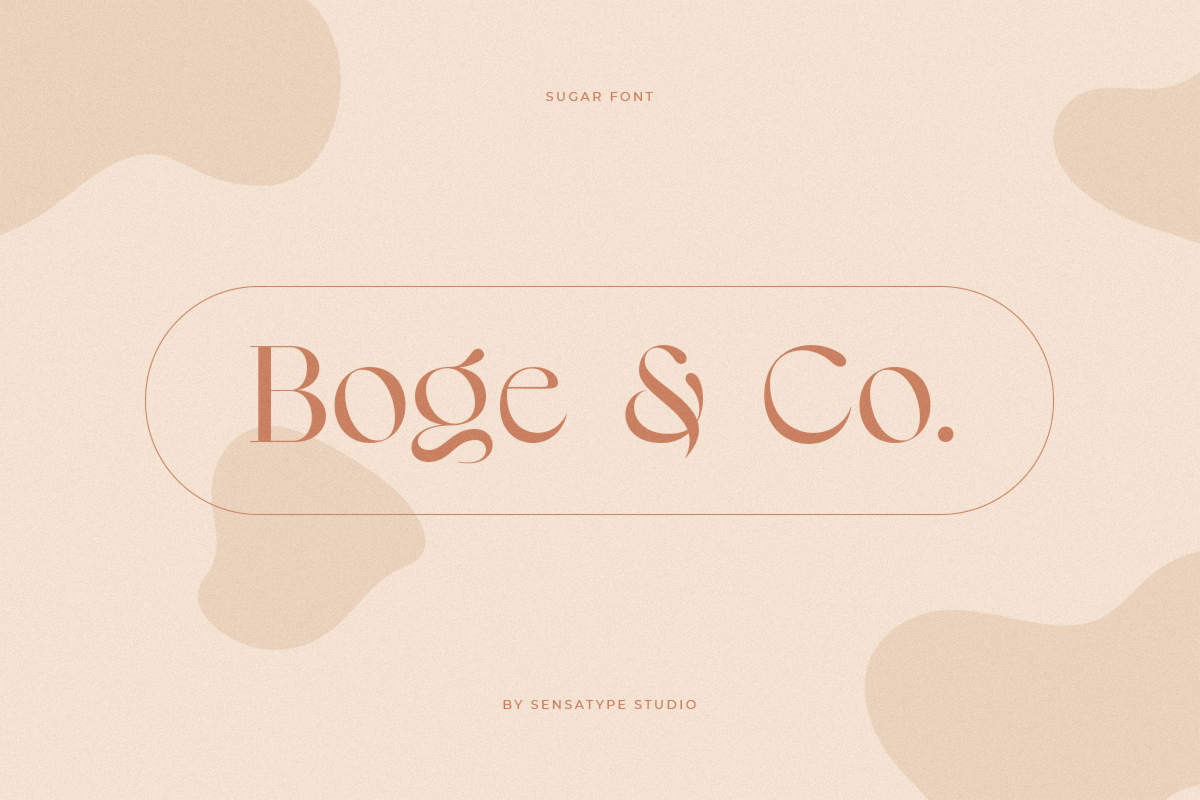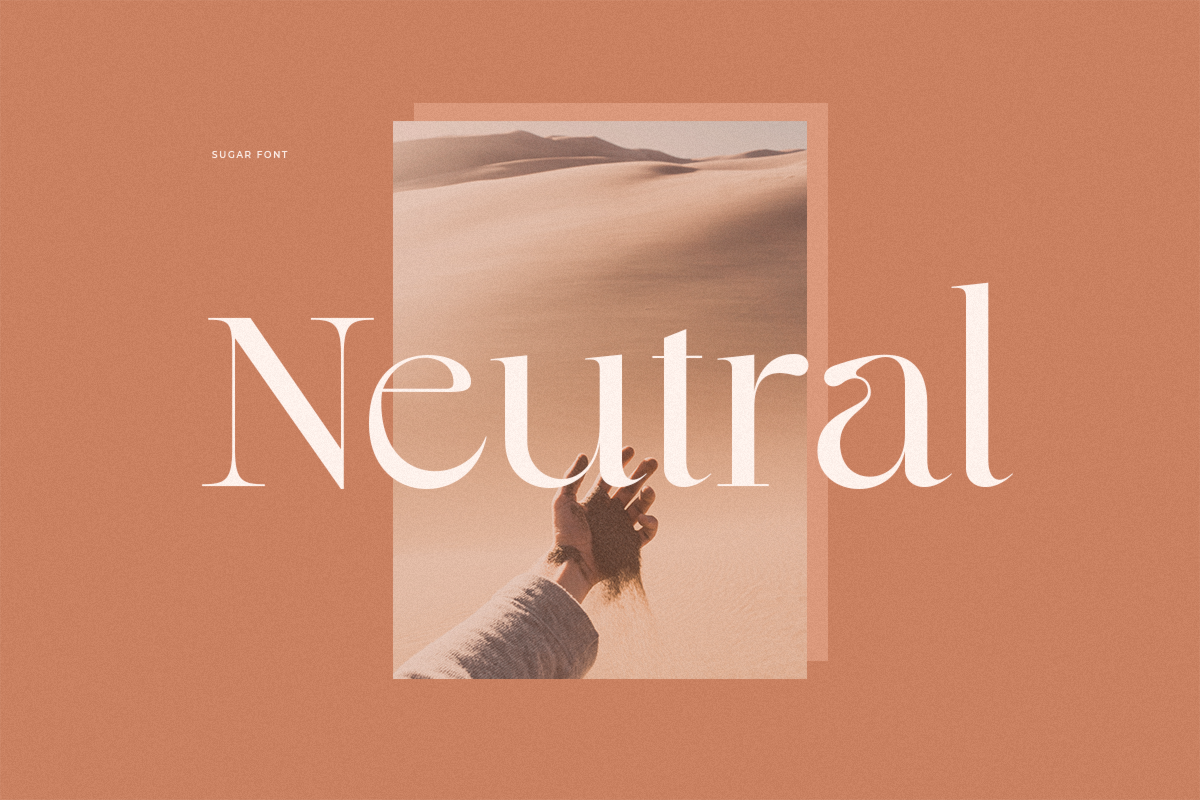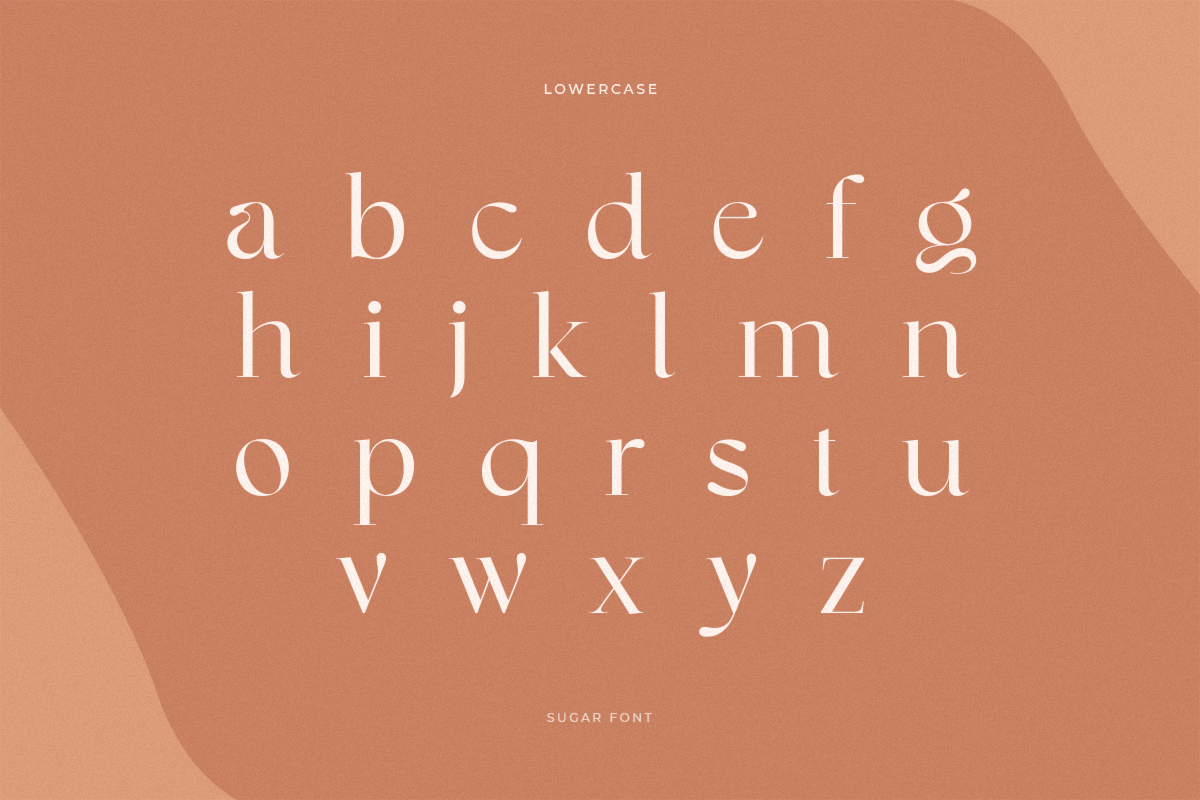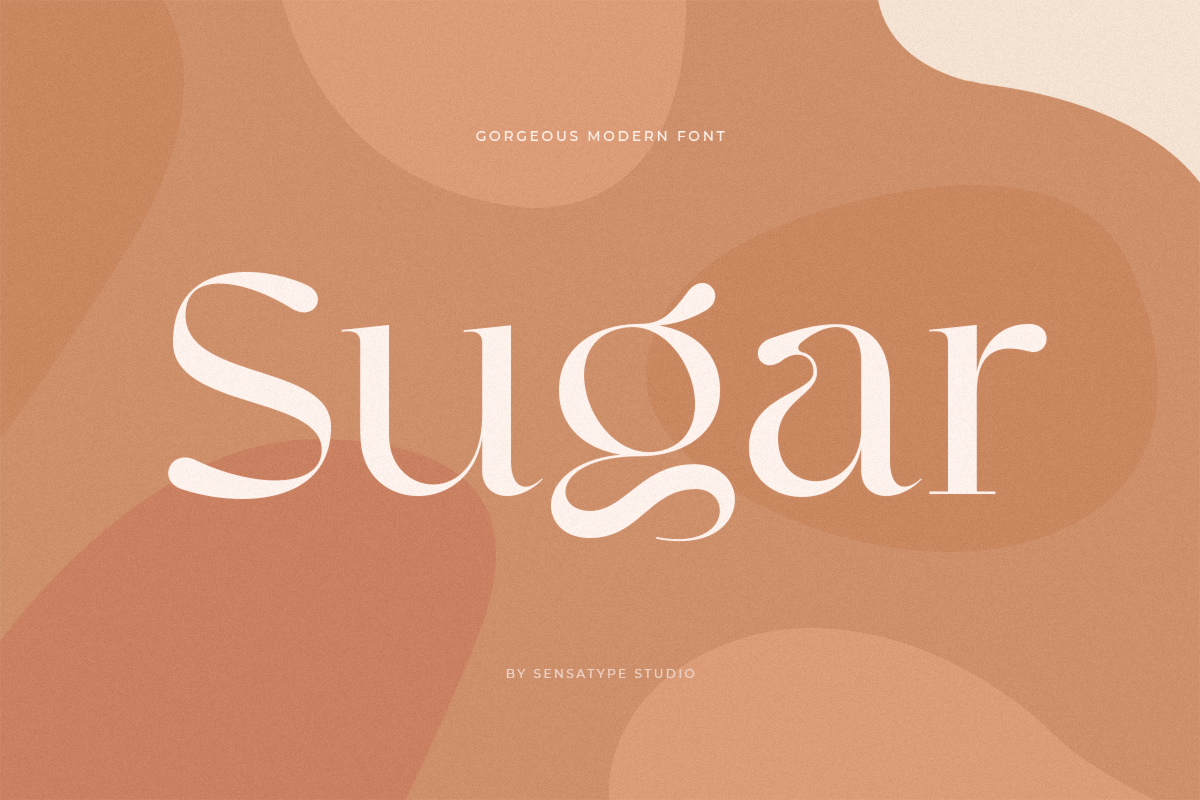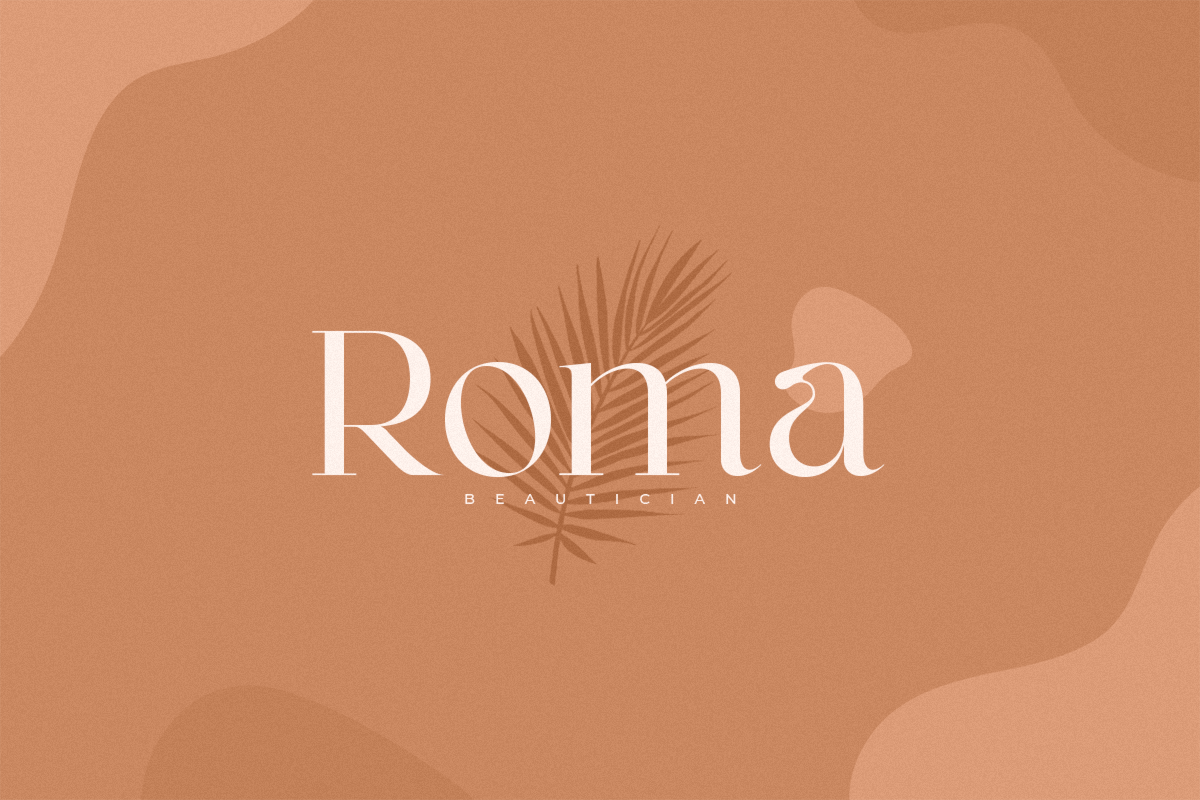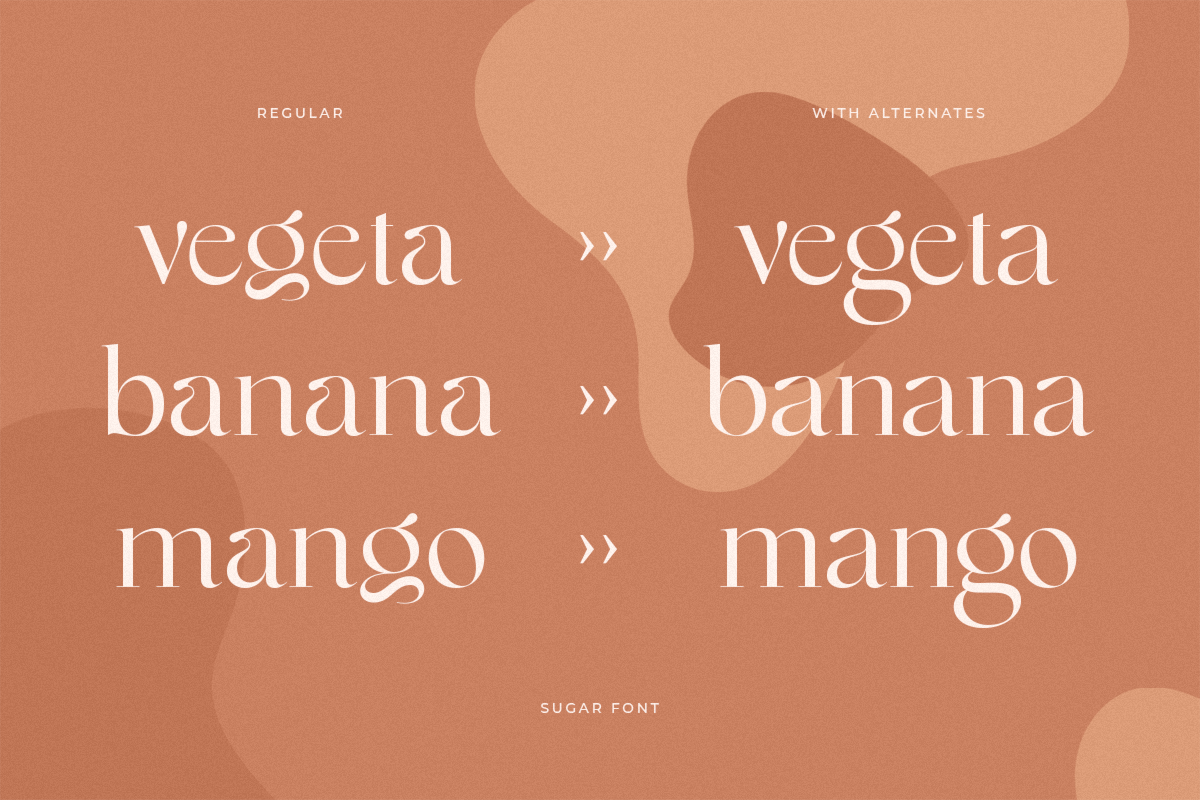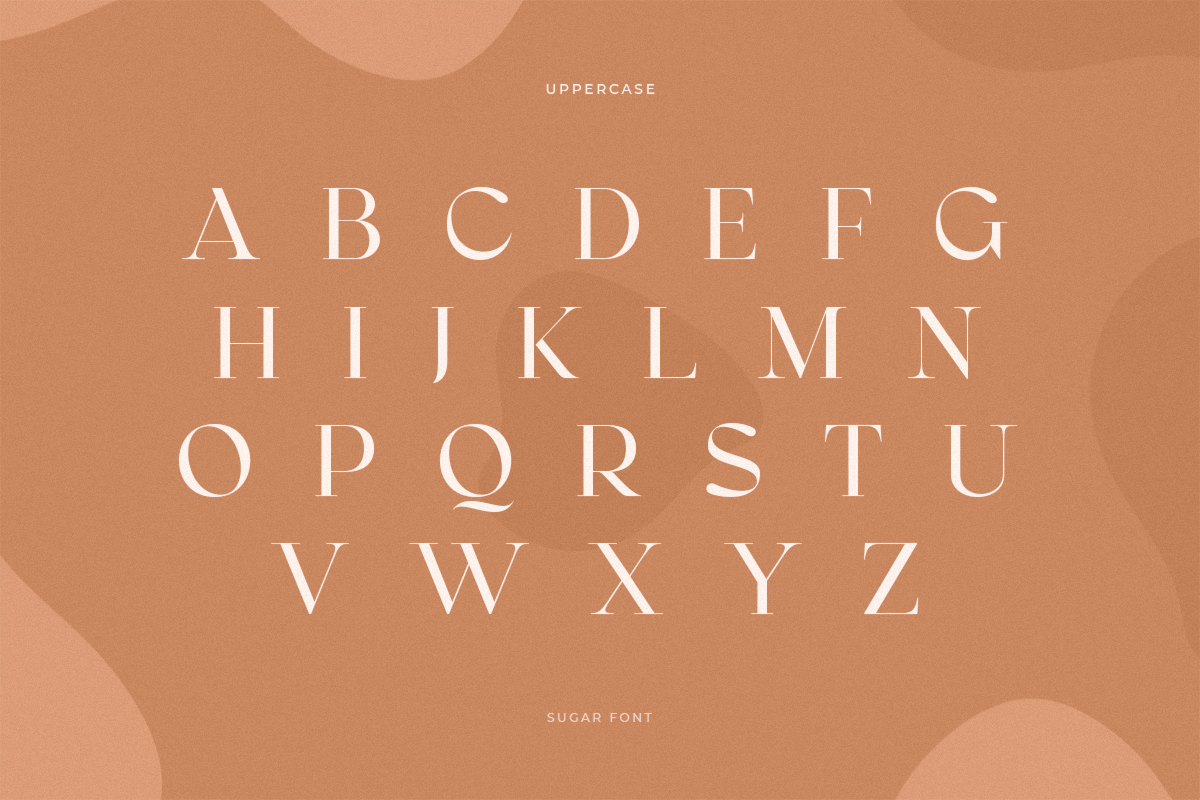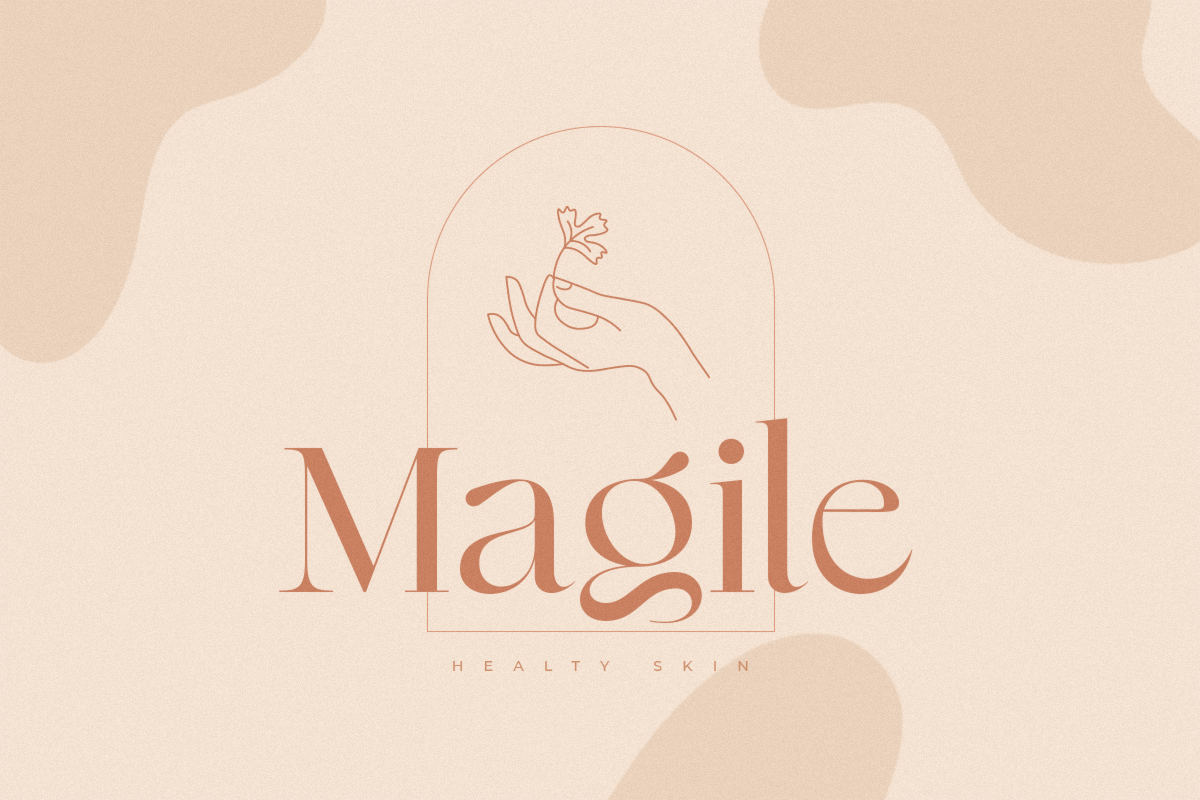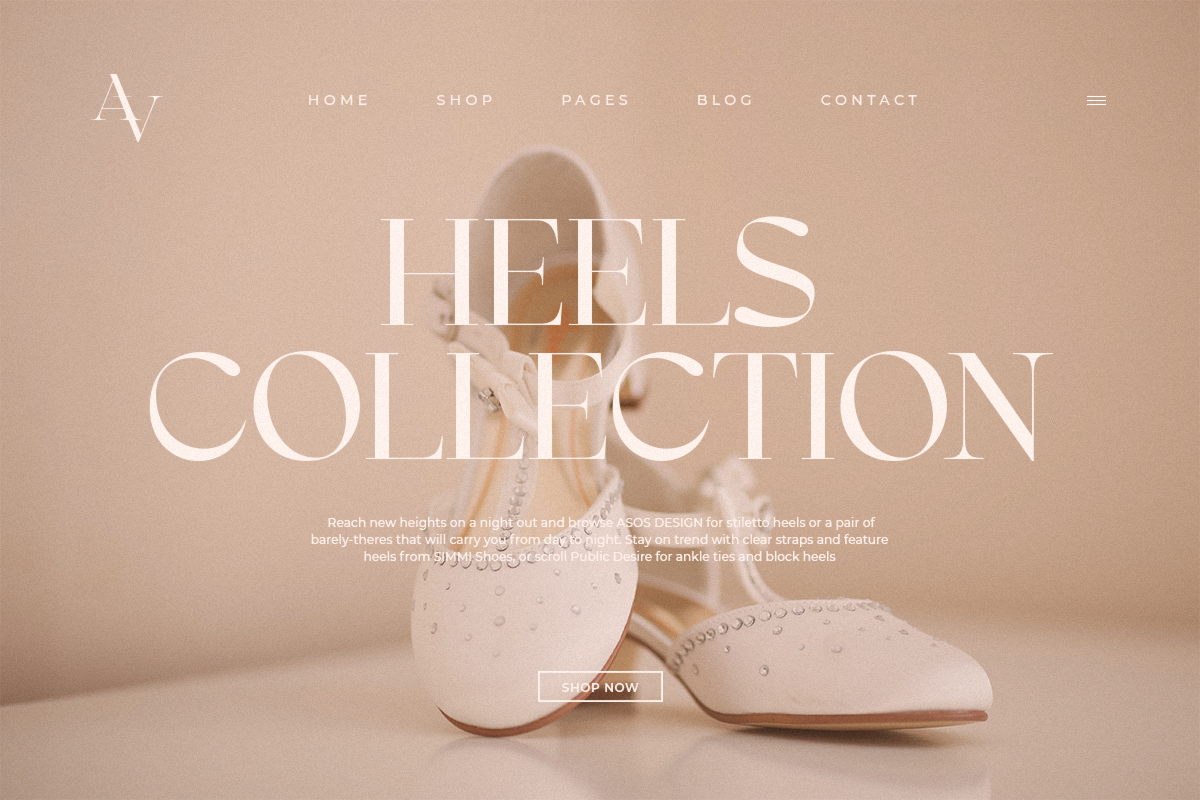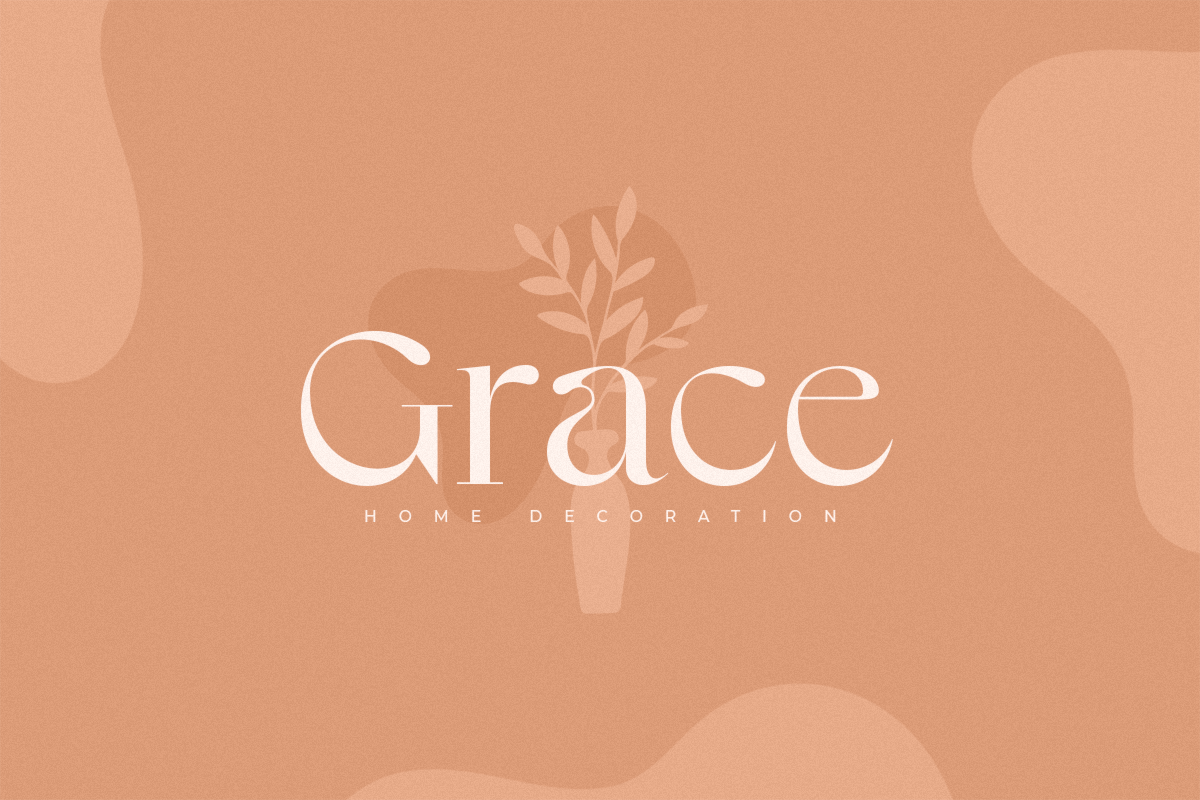
Sugar - Gorgeous Modern Font
Sugar is a Gorgeous Modern Font
A new Display Serif that we created special for logo and branding needs, with extra unique shape that will add your brand value. It so nice to leverage designer or product owner that need solutions to make their design look more gorgeous and modern. And specially for Sugar font, We prepared any alternate characters to help you create unlimited variations for your creative needs specially for logotype or wordmark.
Sugar Display Serif font ready with:
- Any options to get creative variations (combination of Alternates)
- Ready with Lowercase and Uppercase characters